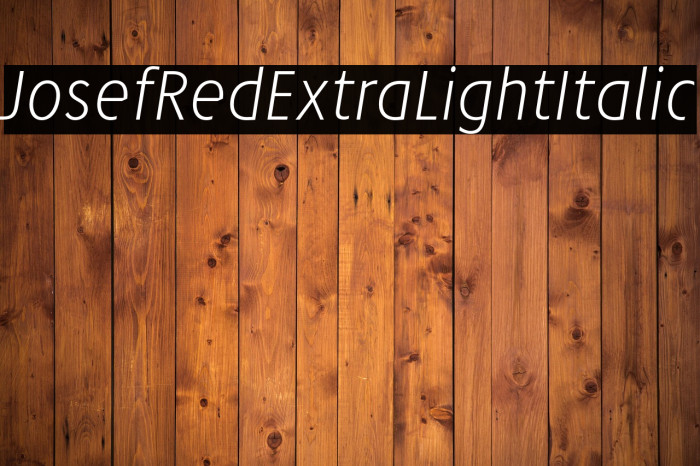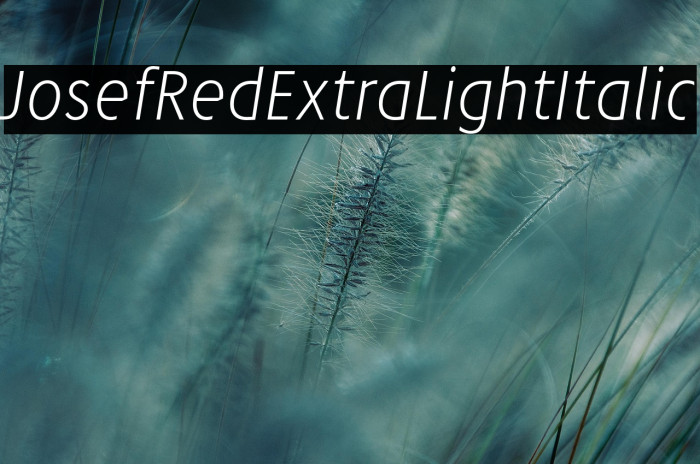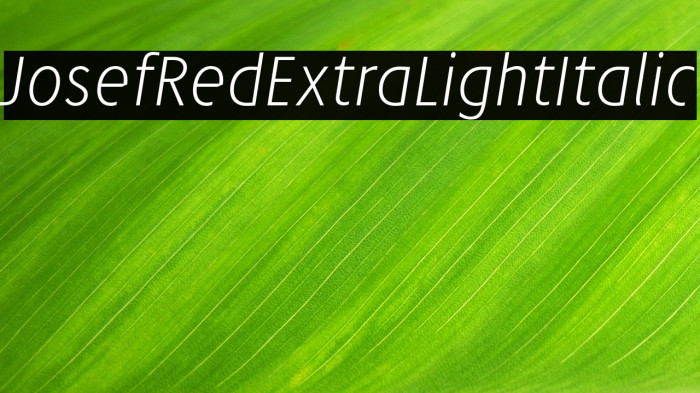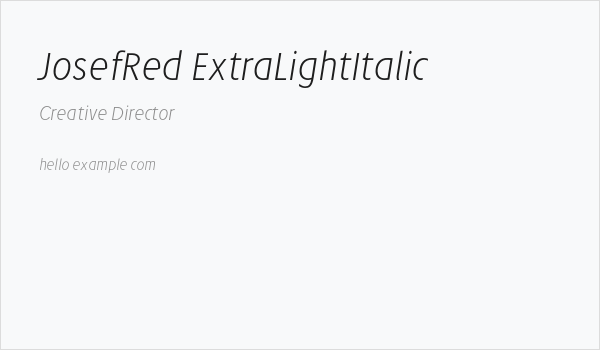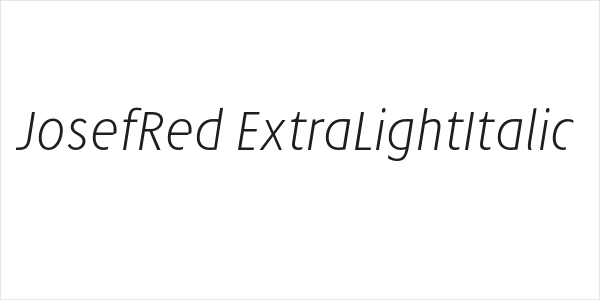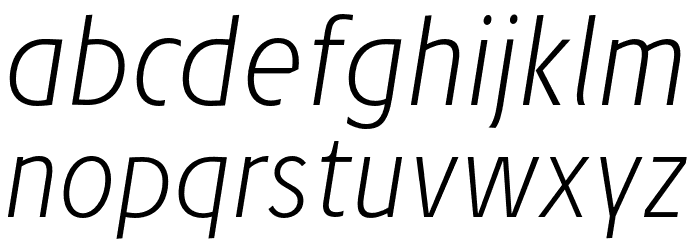
JosefRed-ExtraLightItalic Font
JosefRed-ExtraLightItalic Description
This font exhibits a sleek and modern aesthetic with a clean and minimalistic design. The characters are elegantly elongated, featuring a subtle italic slant that adds a touch of sophistication. The strokes are consistently thin, contributing to an overall light and airy appearance. The font maintains a uniform width across all characters, ensuring a harmonious and balanced look. Its simplicity and elegance make it suitable for a variety of applications, from digital interfaces to print media.
| Proposed Projects | Ideal for fashion magazines, modern websites, branding materials, and elegant invitations. |